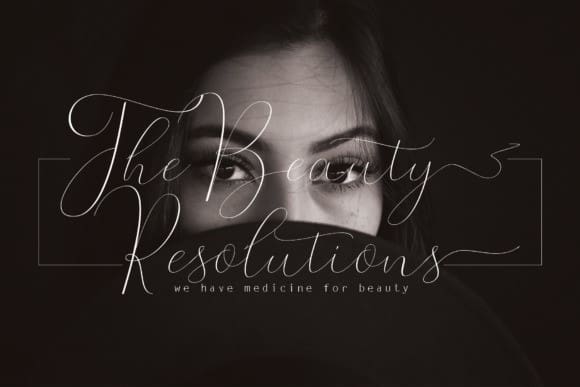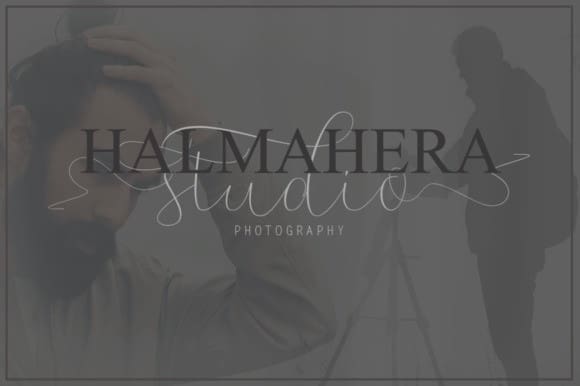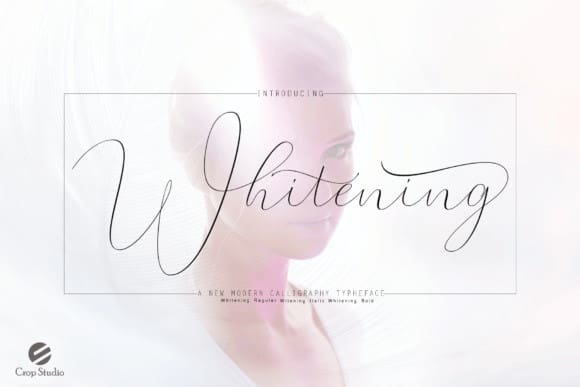
Whitening Script Font
Whitening Script Font, is a beautiful and comprehensive font family, ideal for use in a wide range of print works. This natural and handwritten font is ideal as the center point to your designs, given its wide range of glyphs and alternate characters.